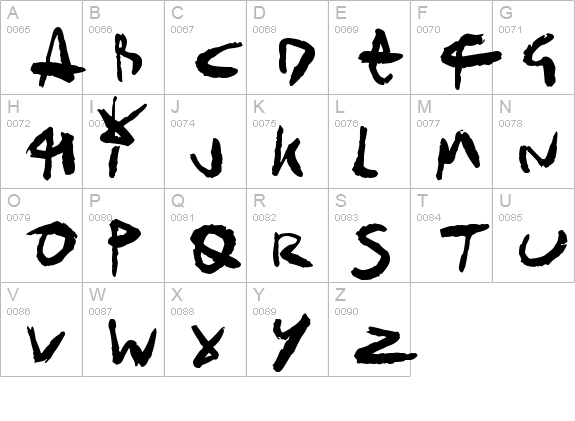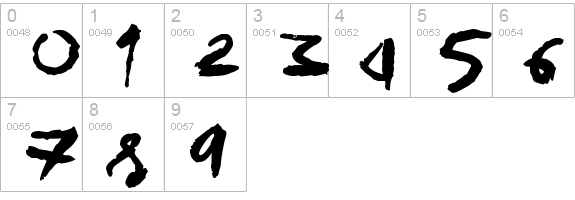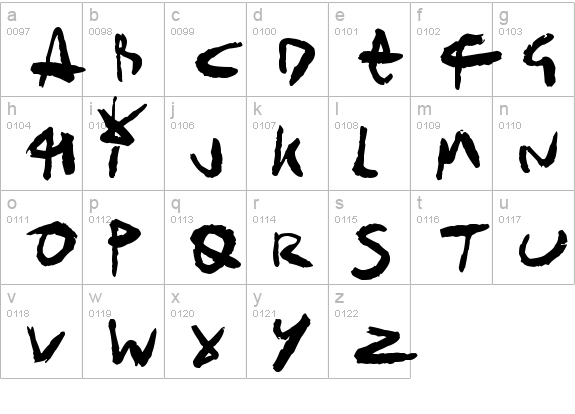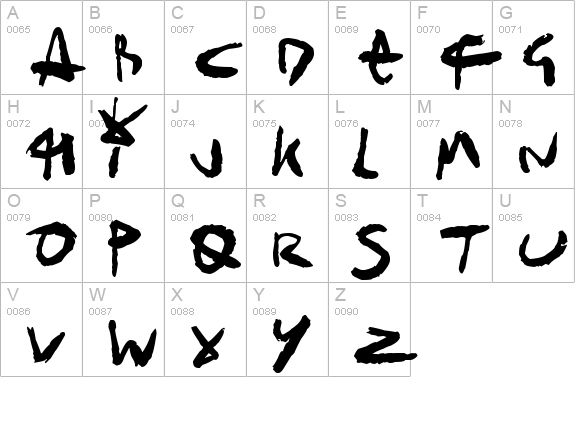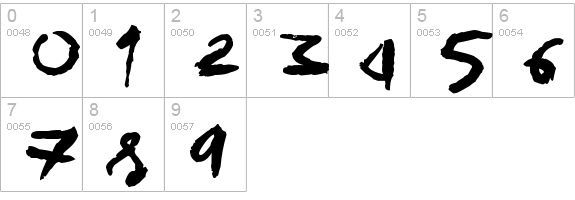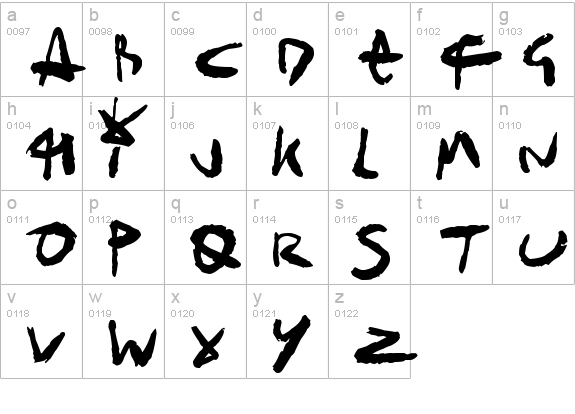
Sick Skechlings Font Details
Sick Skechlings is a free for personal use font in the Script > Handwritten category, designed by Darrell Flood. It has been downloaded 22 times and is available for Windows, Mac and Linux.
Introducing Sick Skechlings font, a bold and dynamic typeface that exudes creativity and originality. With its unique hand-drawn style and quirky charm, this font is perfect for adding a touch of whimsy to your designs. Whether you're working on a poster, logo, or branding project, Sick Skechlings is sure to make a statement.